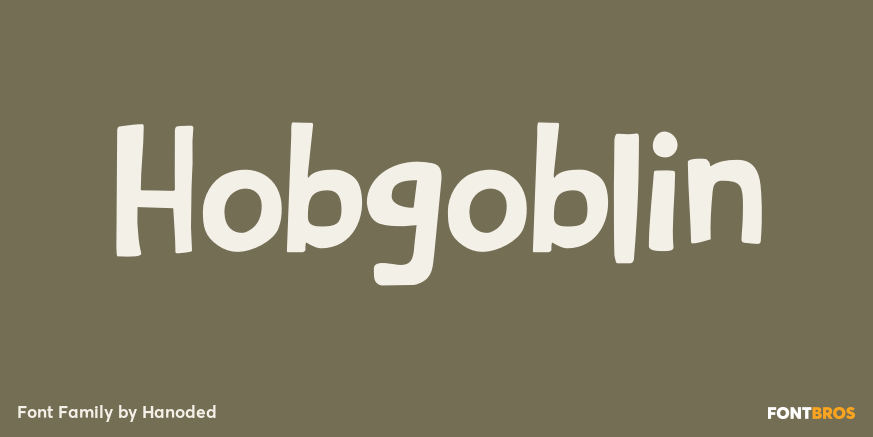
HomeFont BrosHandwrittenHobgoblin HandwrittenScripts: CasualWacky Hobgoblin FacebookXPinterestWhatsApp 1 of 1 About Hobgoblin is a cute and happy little font. It would be ideal for children\’s books, games and apps. Hobgoblin come with mischievous glyphs and a pot-o-gold worth of diacritics.  DOWNLOAD NOW People also explored Burning Sun Font Belycha Font Hollanda Font Pomerania Font Madfool Font Komik Script Font Apirak Font Happy School Font I Love California Font 257 0 TagsHobgoblin Font Previous articleSchooner ScriptNext articleFidelle LEAVE A REPLY Cancel reply Comment: Please enter your comment! Name:* Please enter your name here Email:* You have entered an incorrect email address! Please enter your email address here Website: Save my name, email, and website in this browser for the next time I comment. Personal Use Free Bosk Personal Use Free Read more about this font Barbatrick Personal Use Free Read more about this font Dealerplate California Personal Use Free Read more about this font Free Personal Use Free Read more about this font BLOG How to Install and Use Fonts on Windows, macOS, and Web Projects How to Install and Use Fonts on Windows, macOS, and Web Projects Fonts are a crucial part of design and branding. Whether you’re designing a... Elegant Wedding Invitation Fonts – Handwritten & Script Fonts Best Fonts for YouTube Videos: Make Your Thumbnails Stand Out Exploring Font Trends